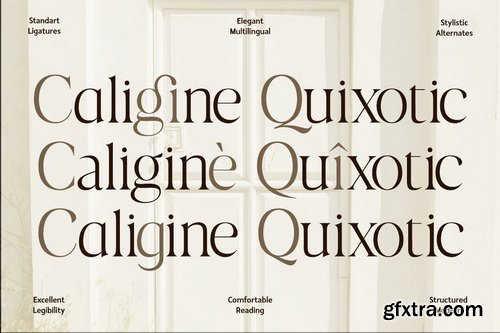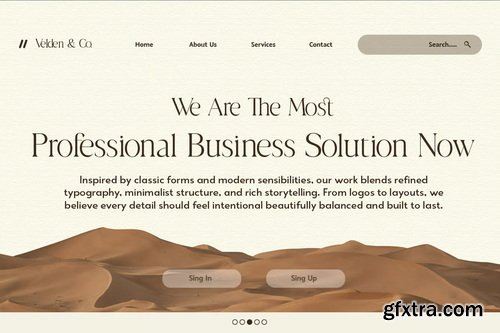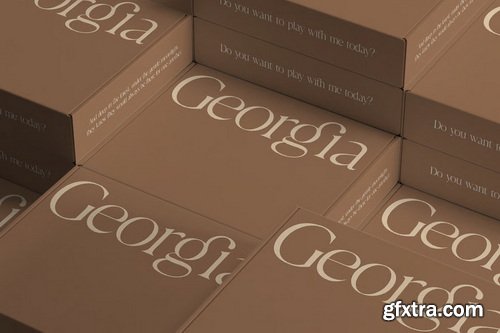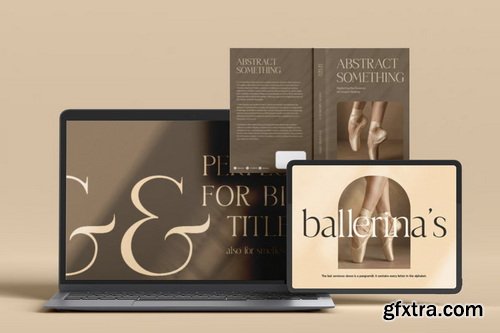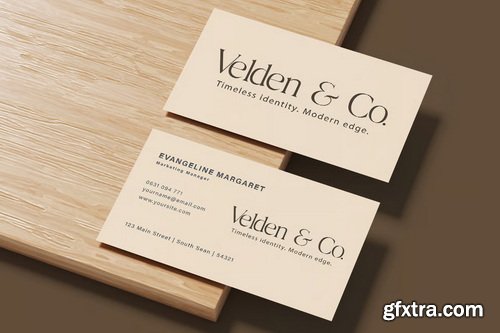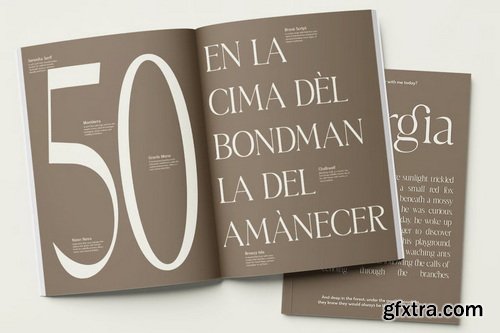
Georgia Classy Serif Font
- Georgia is an Elegant Serif Typeface that blends classic charm with a modern flair. Perfect for headlines, branding, logos, packaging, and editorial design, it’s crafted to create a lasting impression with refined elegance. With its sharp serifs, high contrast strokes, and graceful proportions, Georgia brings sophistication and character to any creative project.
- Whether you’re designing for fashion, lifestyle, or artistic visuals, this typeface offers versatility, personality, and timeless beauty.